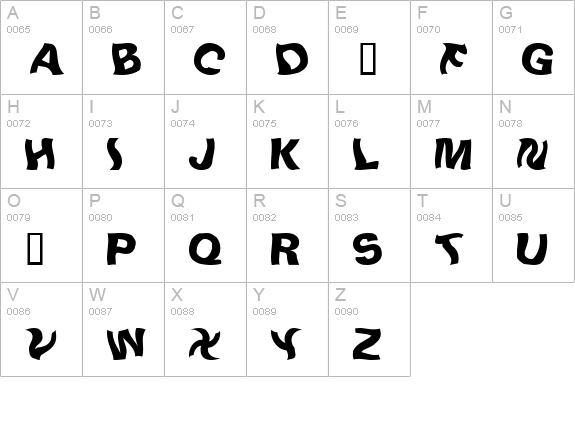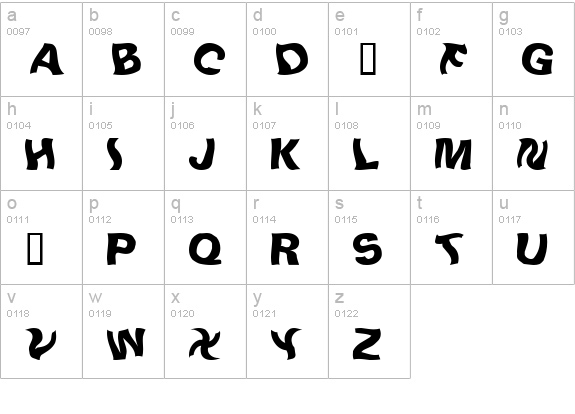
LinusPlaySW font is a versatile and modern typeface that exudes a playful yet sophisticated vibe. With its clean lines and unique design, this font is perfect for a wide range of creative projects, from branding to social media graphics. The whimsical curves and bold strokes of LinusPlaySW make it stand out from the crowd and grab the attention of viewers. What sets LinusPlaySW font apart is that it is not only visually appealing but also free to use. Yes, you read that right - this high-quality font is freely available to download at FontsMarket.com, making it accessible to designers, artists, and creatives of all kinds. Don't miss out on the opportunity to add this fantastic font to your collection and elevate your designs with its charm and character. Download LinusPlaySW font today and let your creativity shine!